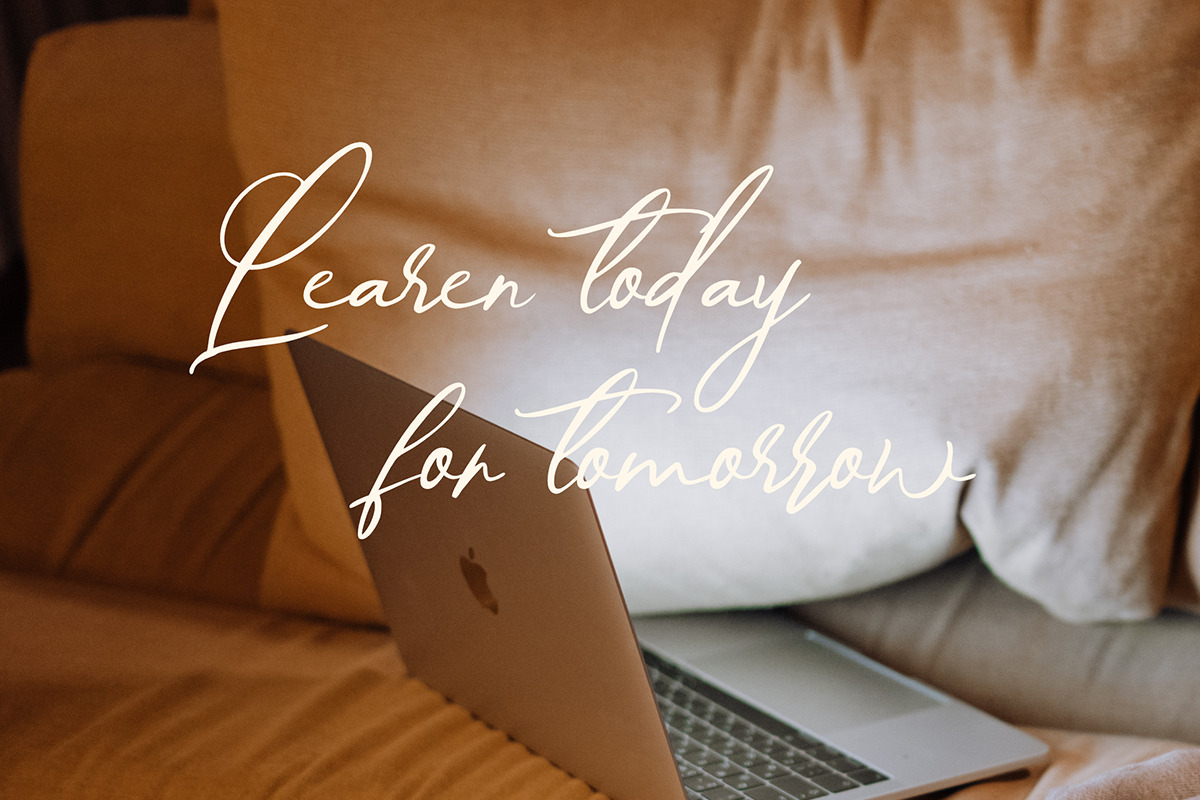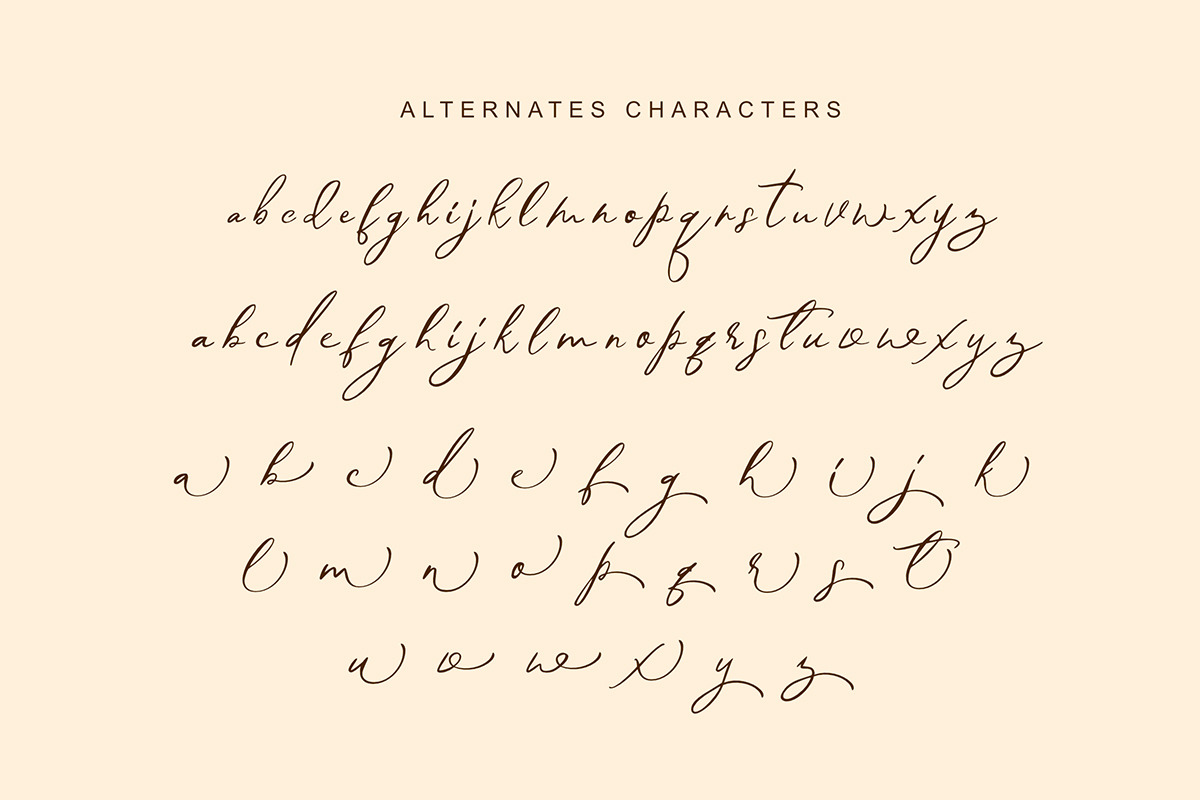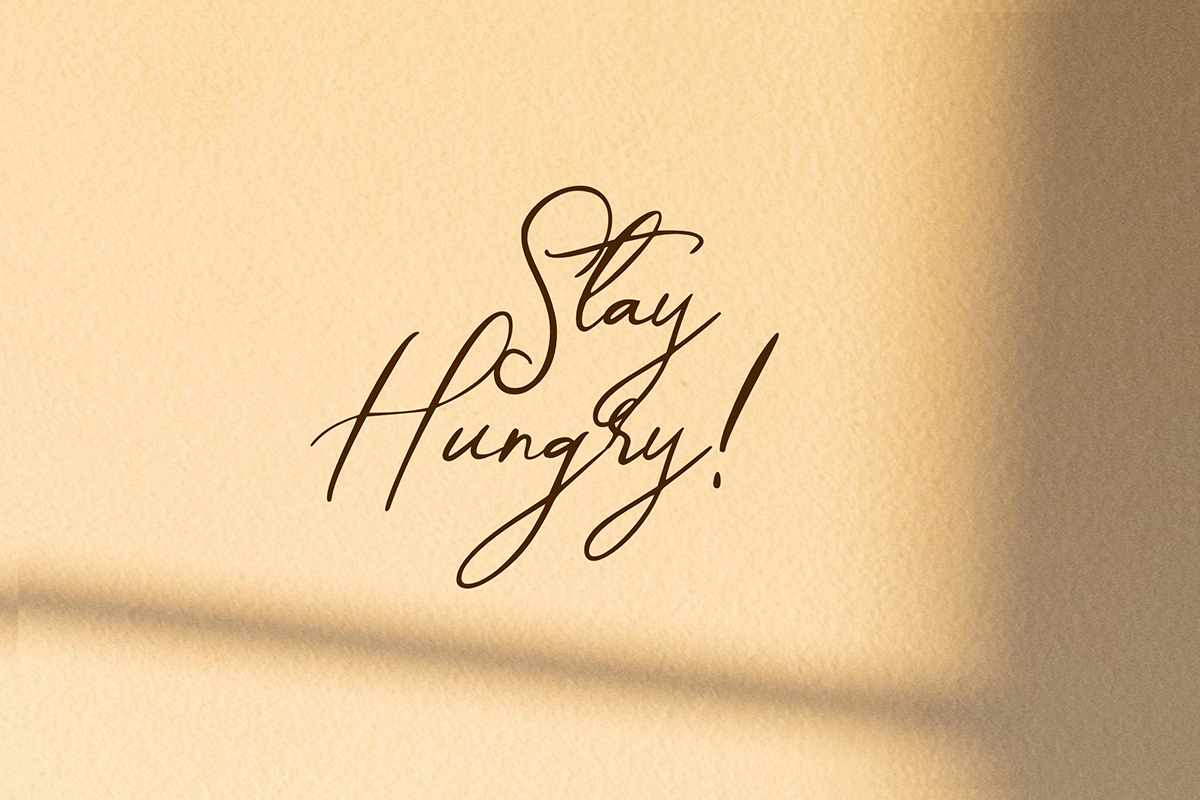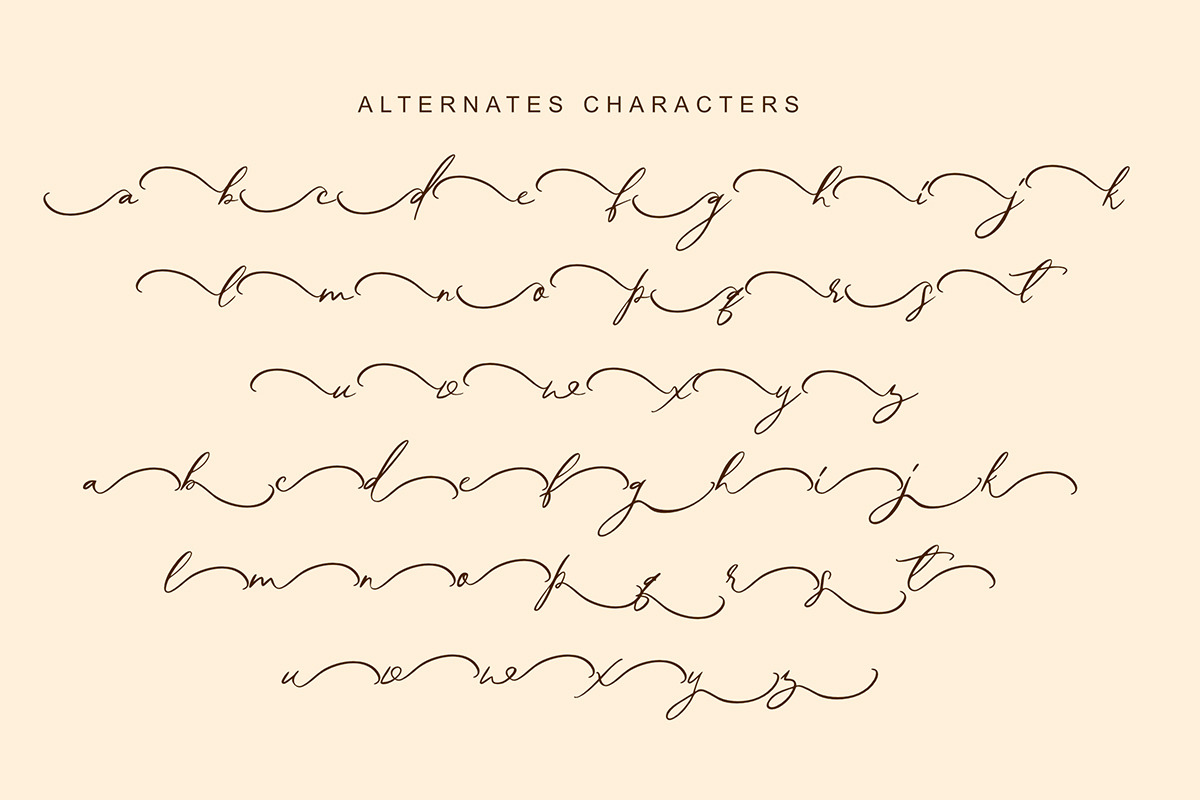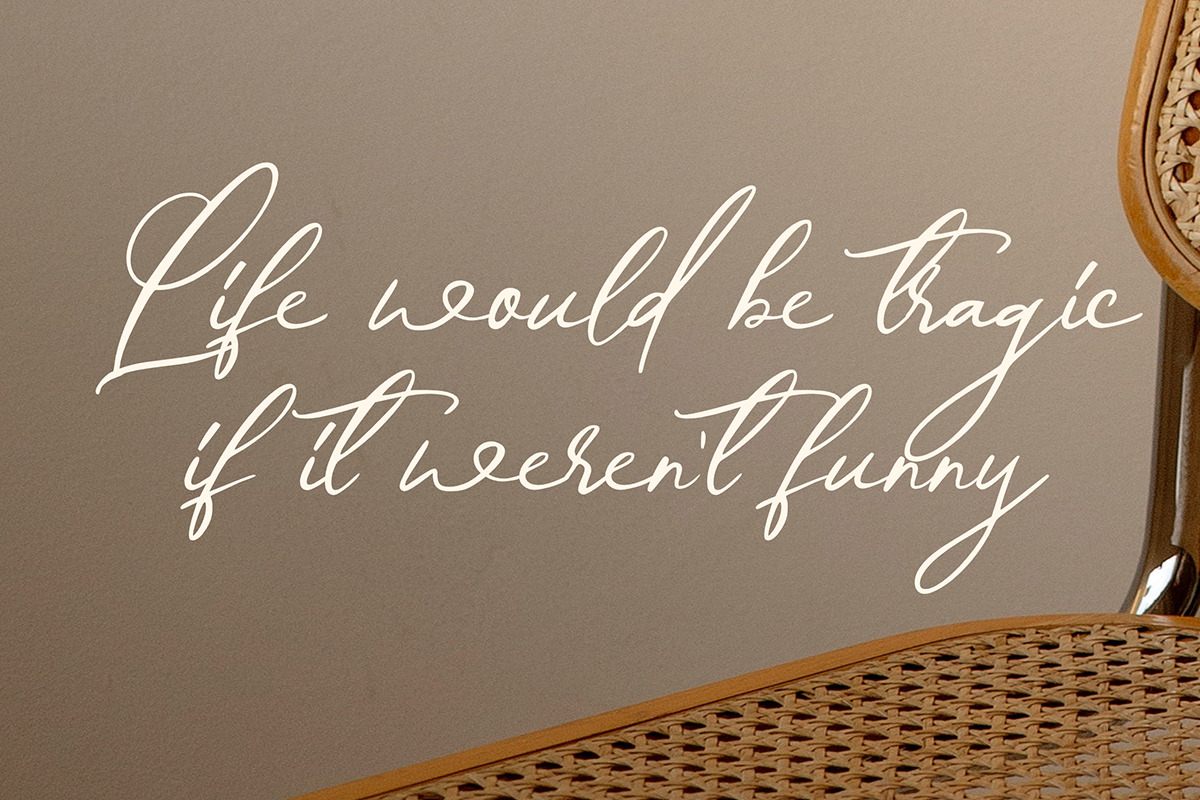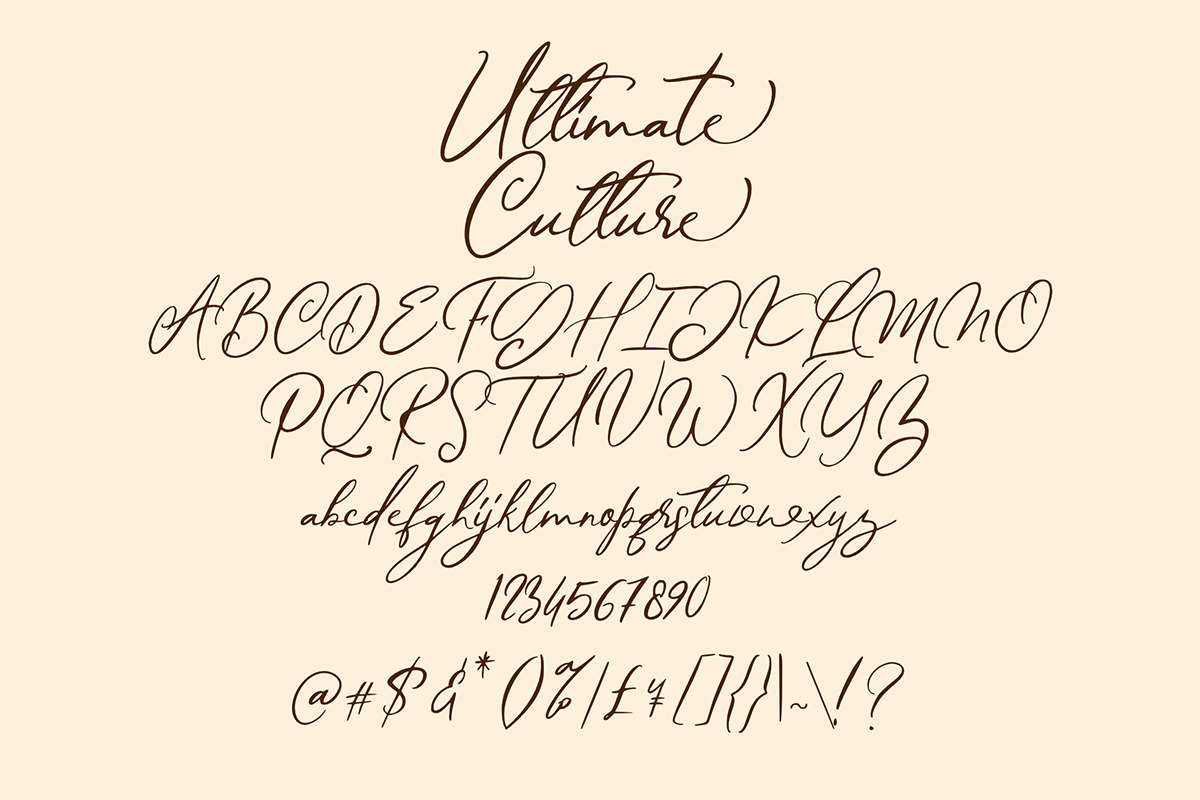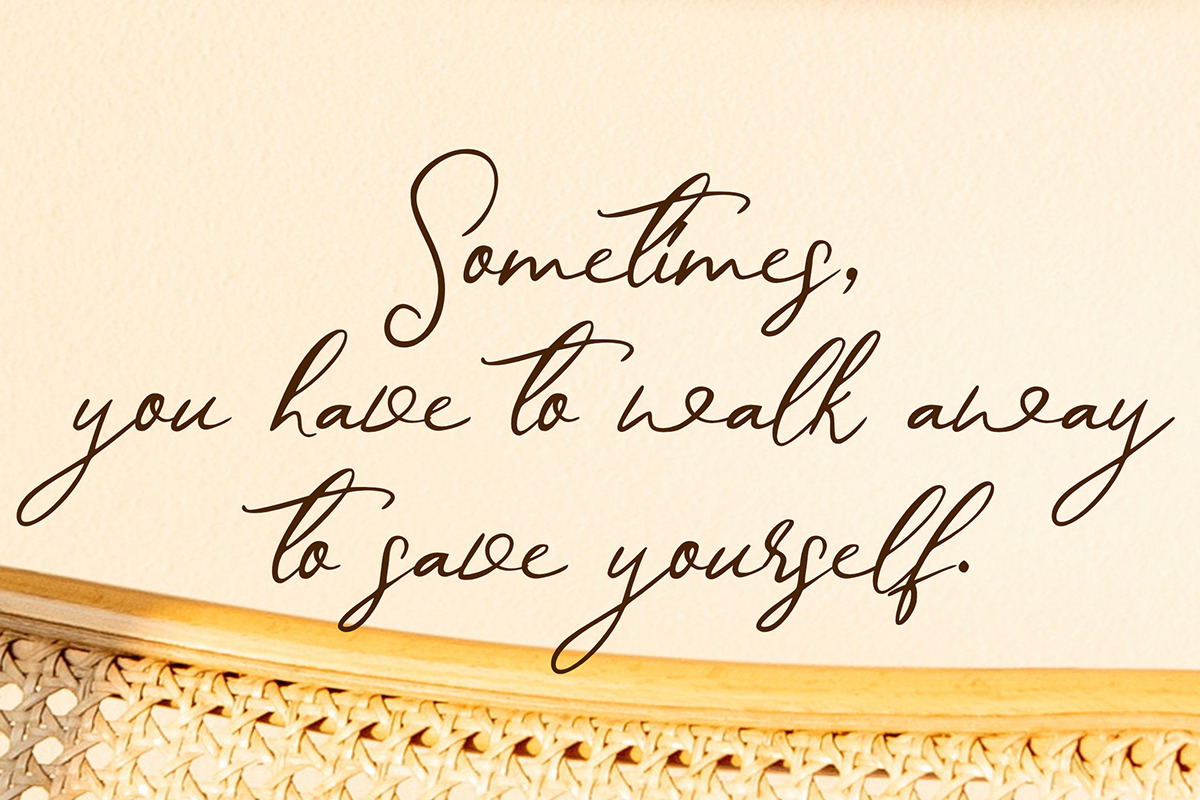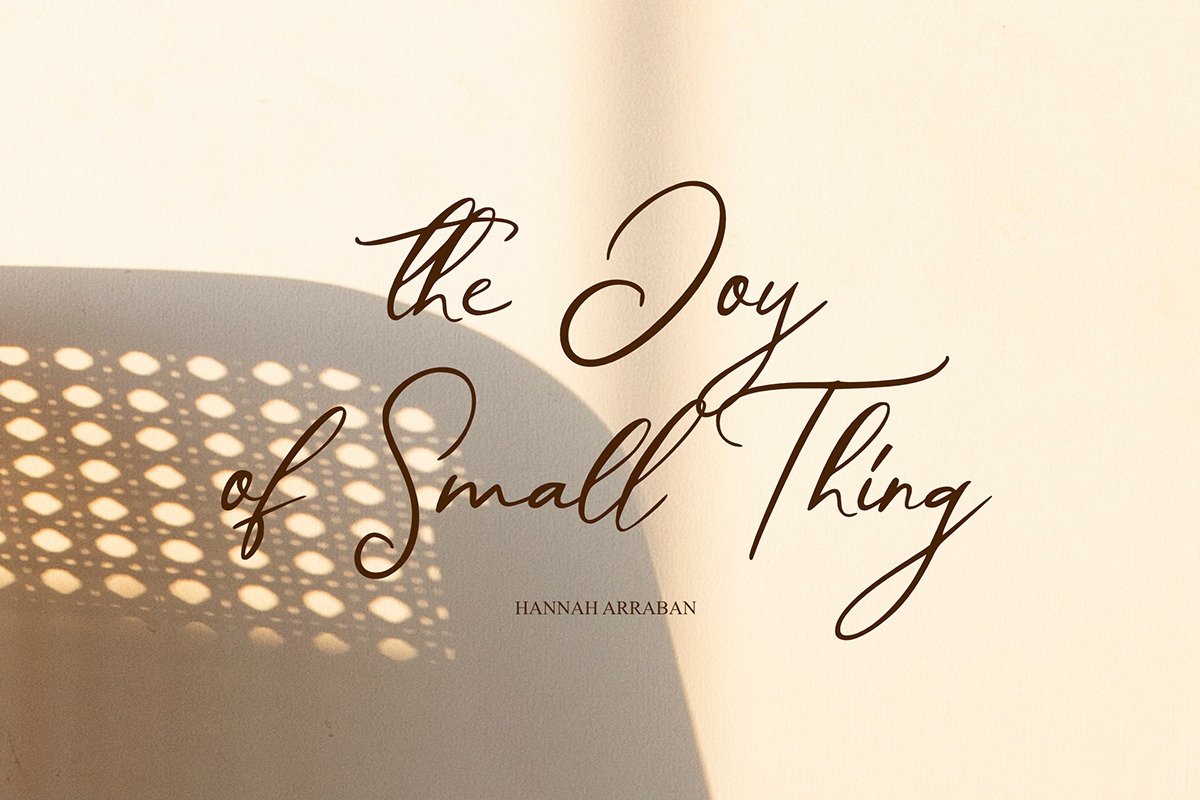
Ultimate Culture
Ultimate Culture Script embodies chic sophistication with its elegant ligatures, making it an ideal companion for an array of projects. From captivating logos and exquisite wedding designs to engaging social media posts, eye-catching advertisements, and alluring product packaging, this font adds a seamless handwritten touch.
Unlock the full potential of Ultimate Culture Script with its PUA encoding, granting you effortless access to an array of amazing glyphs and ligatures. Elevate your creative endeavors to new heights and leave a lasting impression with this captivating font!
This Include contains standard characters, lowercase, uppercase, numbers, punctuation, ligatures & international characters.